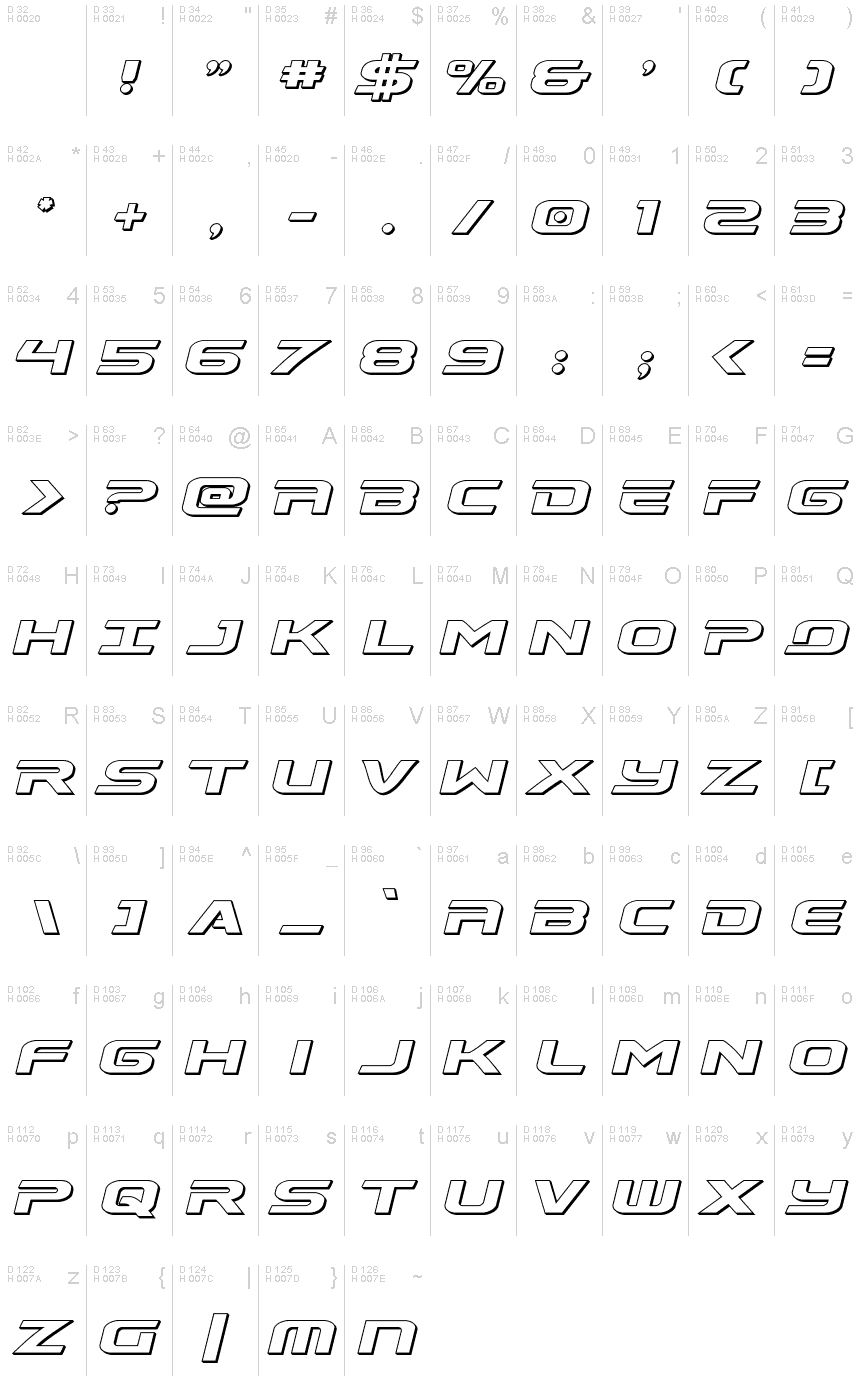
Drius 3D is a bold and futuristic display font designed by Iconian Fonts. With its unique 3D style, this font is perfect for projects that crave a cutting-edge and futuristic look.
Use it to create eye-catching logos, posters, or website headers that demand attention. Its bold weight adds impact and makes it suitable for designs that require strong visual presence. Whether you're working on a sci-fi movie poster or a tech-oriented website, Drius 3D will effortlessly give your project a modern and dynamic feel.